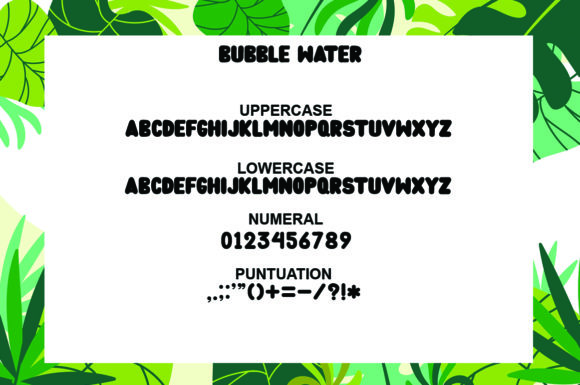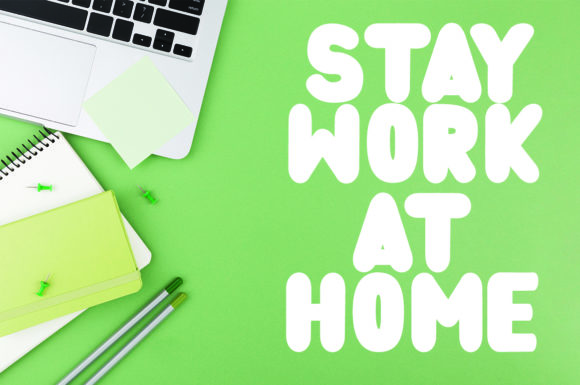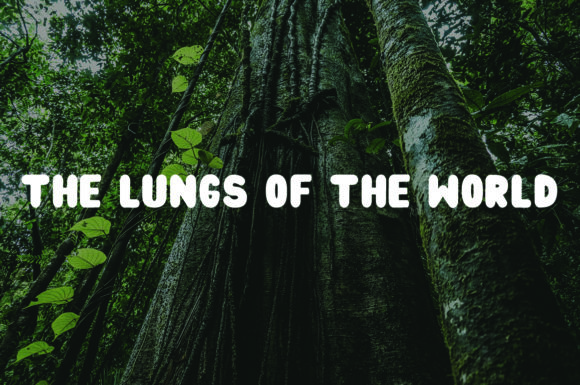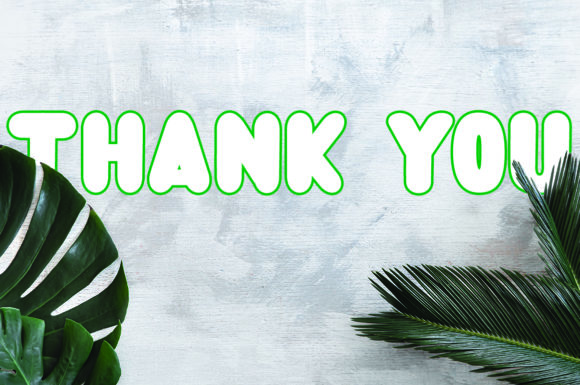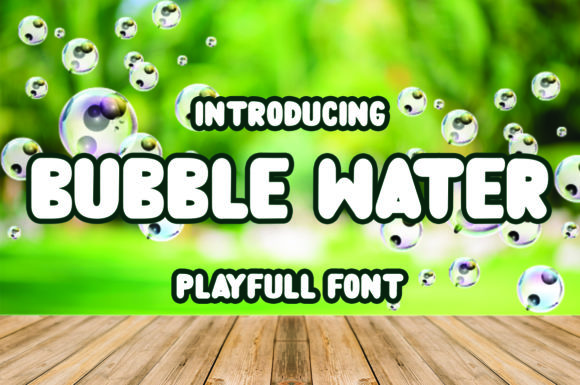
Bubble Water Font: A Sweet and Friendly Display Font for Your Creative Projects
Are you looking for a font that can add a touch of sweetness and friendliness to your designs? Look no further than the Bubble Water Font! This beautiful display font is perfect for a wide range of creative projects, from branding and advertising to packaging and crafts. In this article, we’ll take a closer look at the Bubble Water Font, its unique features, and how you can use it to take your designs to the next level.
What is Bubble Water Font?
Bubble Water Font is a sweet and friendly display font that is designed to add a playful touch to your designs. Its natural and unique style makes it incredibly fitting for a large pool of designs, from fun and quirky to elegant and sophisticated. The font’s rounded edges and smooth curves give it a soft and approachable feel, making it perfect for designs that require a friendly and approachable tone.
Unique Features of Bubble Water Font
So, what makes Bubble Water Font so special? Here are a few of its unique features:
- Natural and Unique Style: The Bubble Water Font has a one-of-a-kind style that is both natural and unique. Its irregular curves and rounded edges give it a handmade feel that is perfect for designs that require a personal touch.
- Sweet and Friendly: The font’s sweet and friendly tone makes it perfect for designs that require a playful and approachable feel. It’s ideal for brands and businesses that want to convey a sense of fun and approachability.
- Versatile: The Bubble Water Font is incredibly versatile and can be used for a wide range of designs, from headings and titles to logos and packaging.
How to Use Bubble Water Font in Your Designs
Now that we’ve covered the basics of the Bubble Water Font, let’s talk about how you can use it in your designs. Here are a few ideas to get you started:
- Branding and Advertising: Use the Bubble Water Font to create eye-catching logos, advertisements, and marketing materials that require a playful and approachable tone.
- Packaging: Add a touch of sweetness and friendliness to your product packaging with the Bubble Water Font. It’s perfect for food, beverage, and lifestyle products.
- Crafts and DIY Projects: The Bubble Water Font is also perfect for crafters and DIY enthusiasts. Use it to create handmade cards, gift tags, and other paper crafts.
Tips and Tricks for Using Bubble Water Font
Here are a few tips and tricks to keep in mind when using the Bubble Water Font:
- Use it as a Display Font: The Bubble Water Font is designed to be used as a display font, so use it to create eye-catching headings and titles.
- Experiment with Colors: The font’s playful and approachable tone makes it perfect for bright and bold colors. Experiment with different color combinations to find the one that works best for your design.
- Pair it with Other Fonts: Don’t be afraid to pair the Bubble Water Font with other fonts to create a unique and interesting contrast.
| Font Name | Bubble Water Font |
| Author | savirafaeyzaart |
In conclusion, the Bubble Water Font is a sweet and friendly display font that is perfect for a wide range of creative projects. Its natural and unique style makes it incredibly fitting for designs that require a playful and approachable tone. With its versatility and ease of use, it’s no wonder that this font is a favorite among designers and crafters. So why not give it a try and see how it can elevate your designs?
The only limit is your imagination, so don’t be afraid to get creative and experiment with different designs and ideas. With the Bubble Water Font, the possibilities are endless!